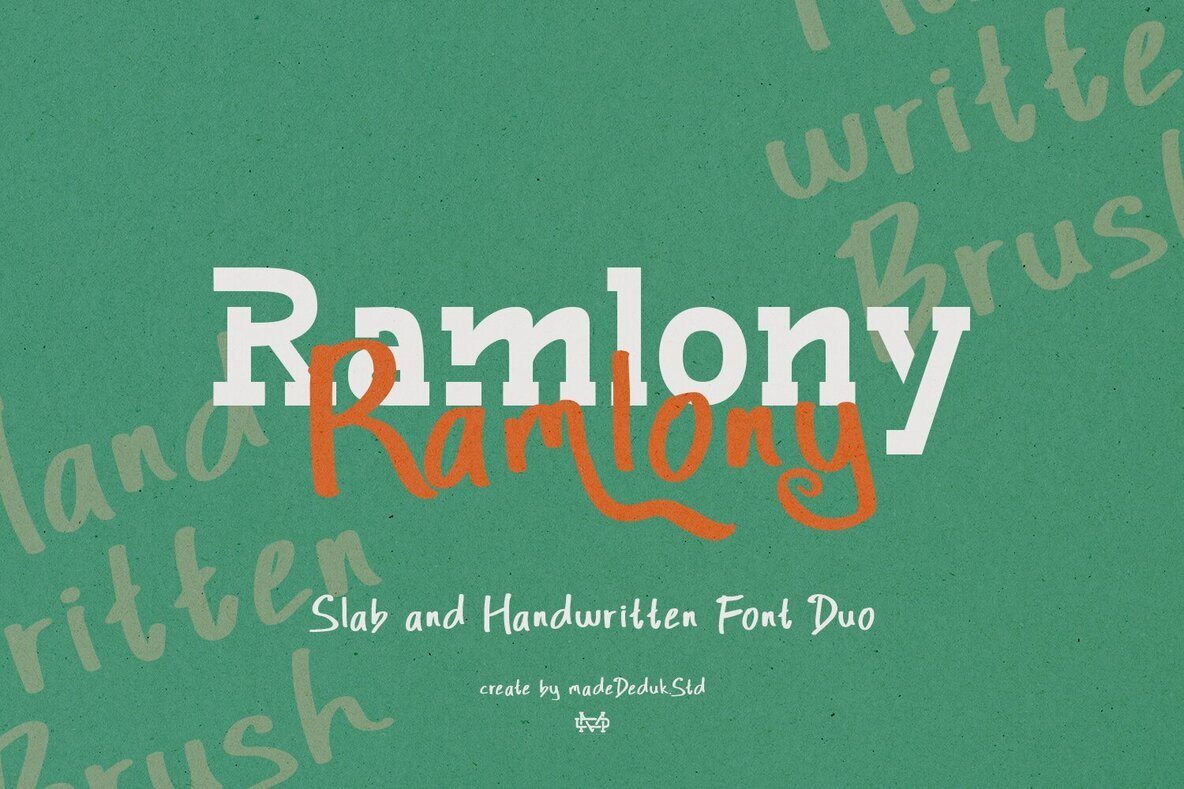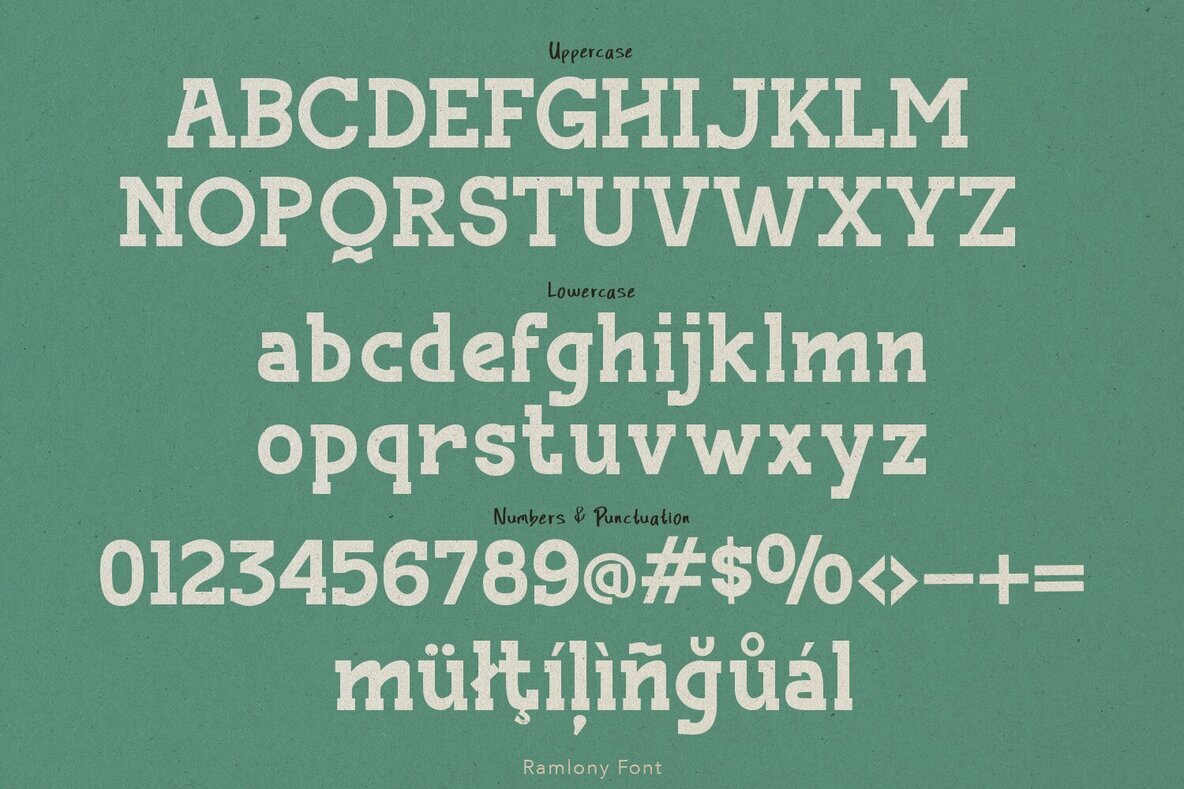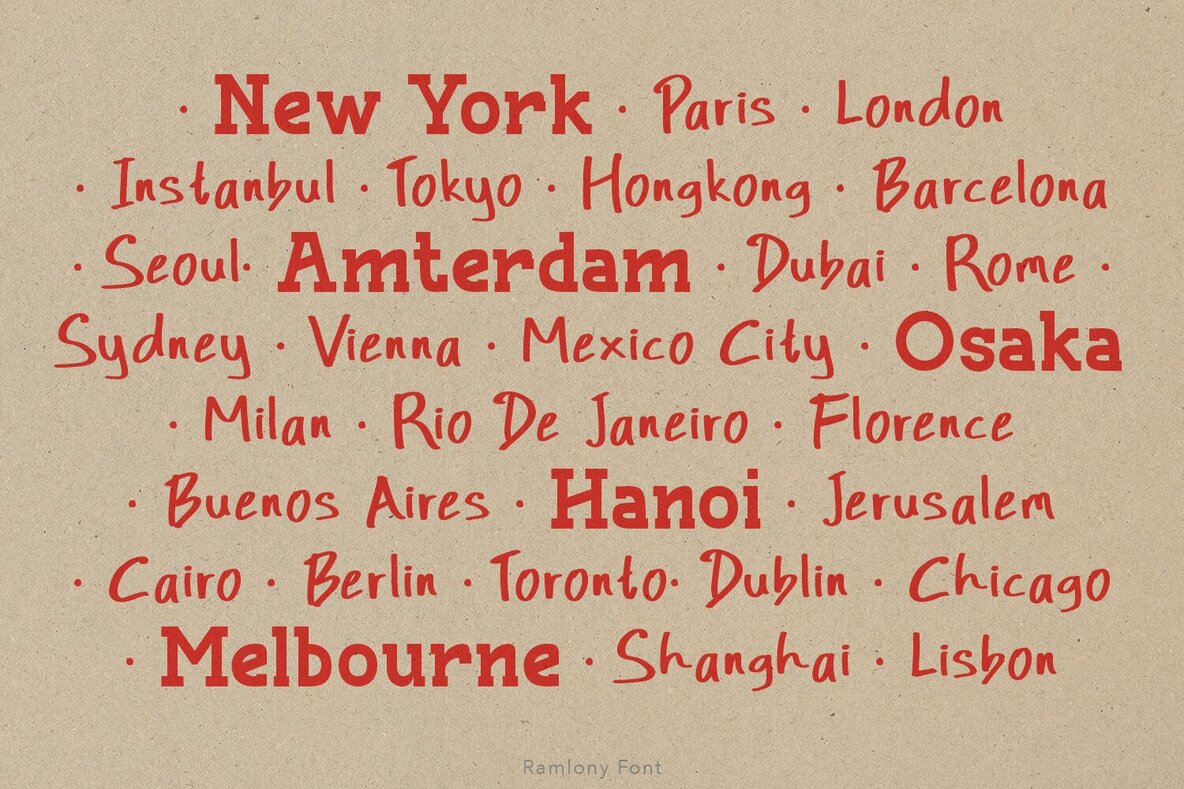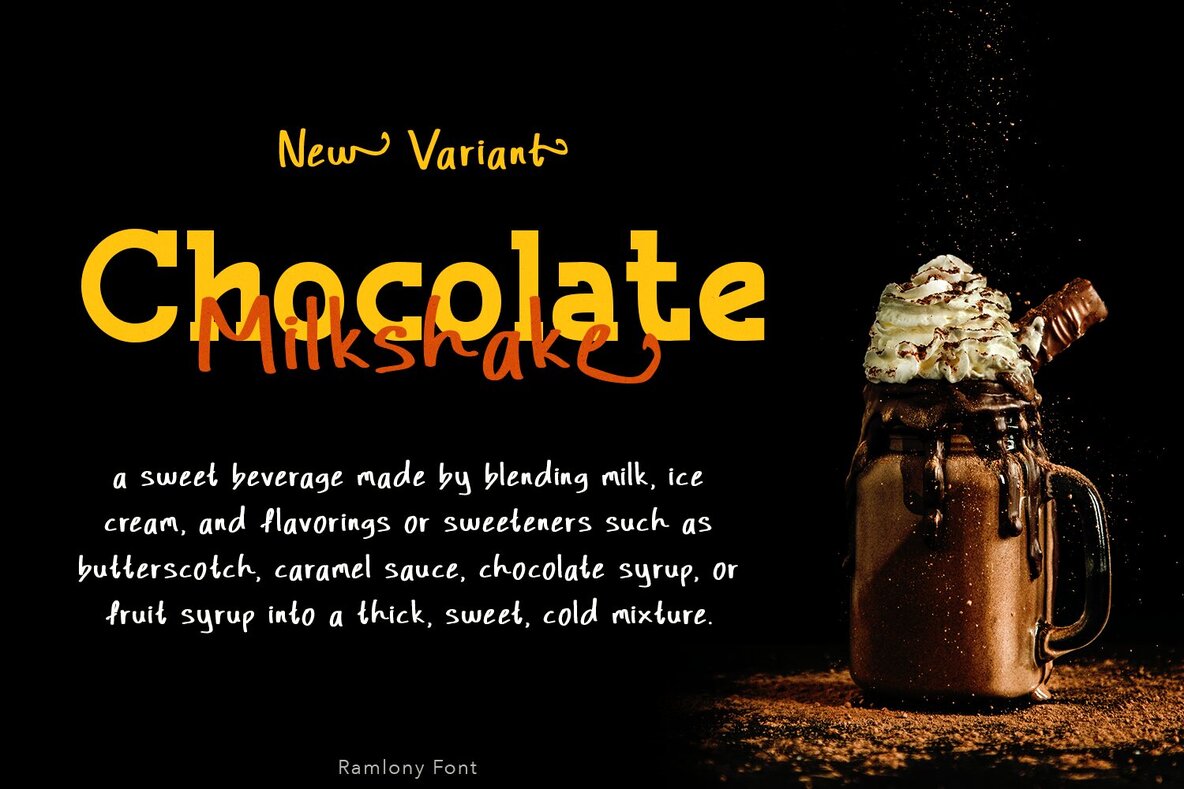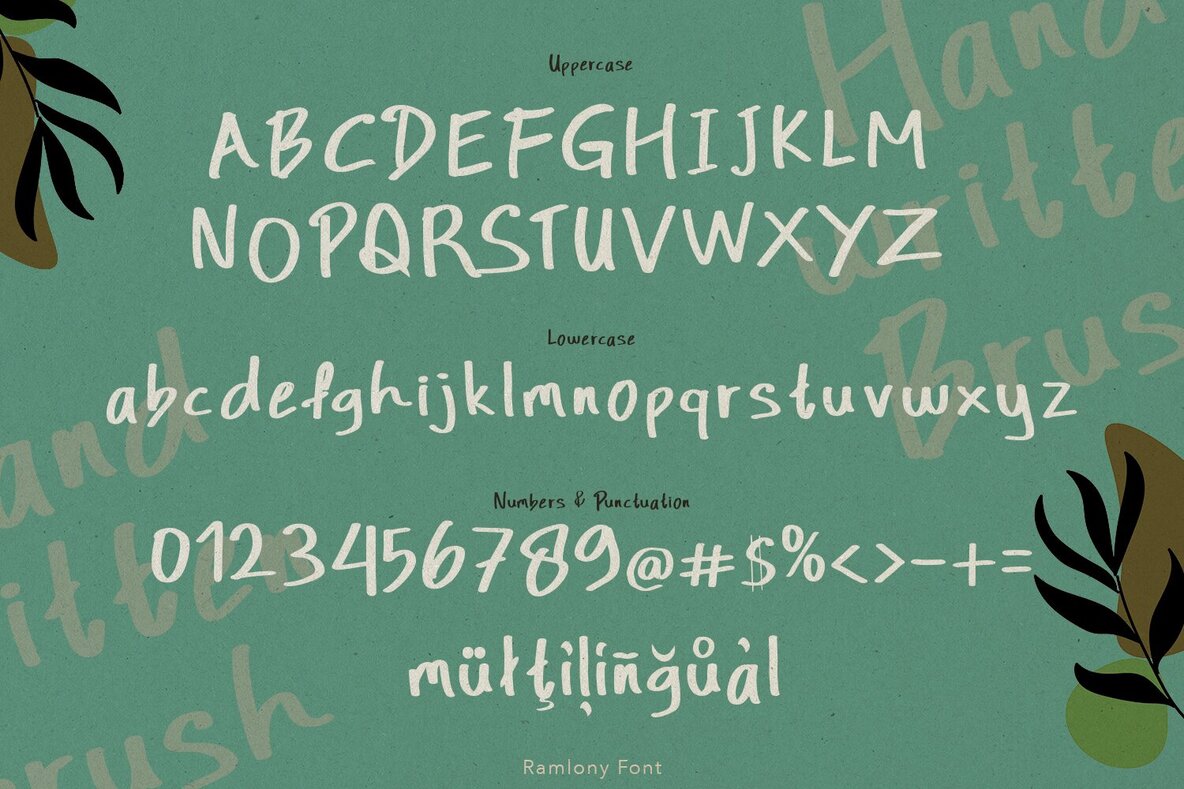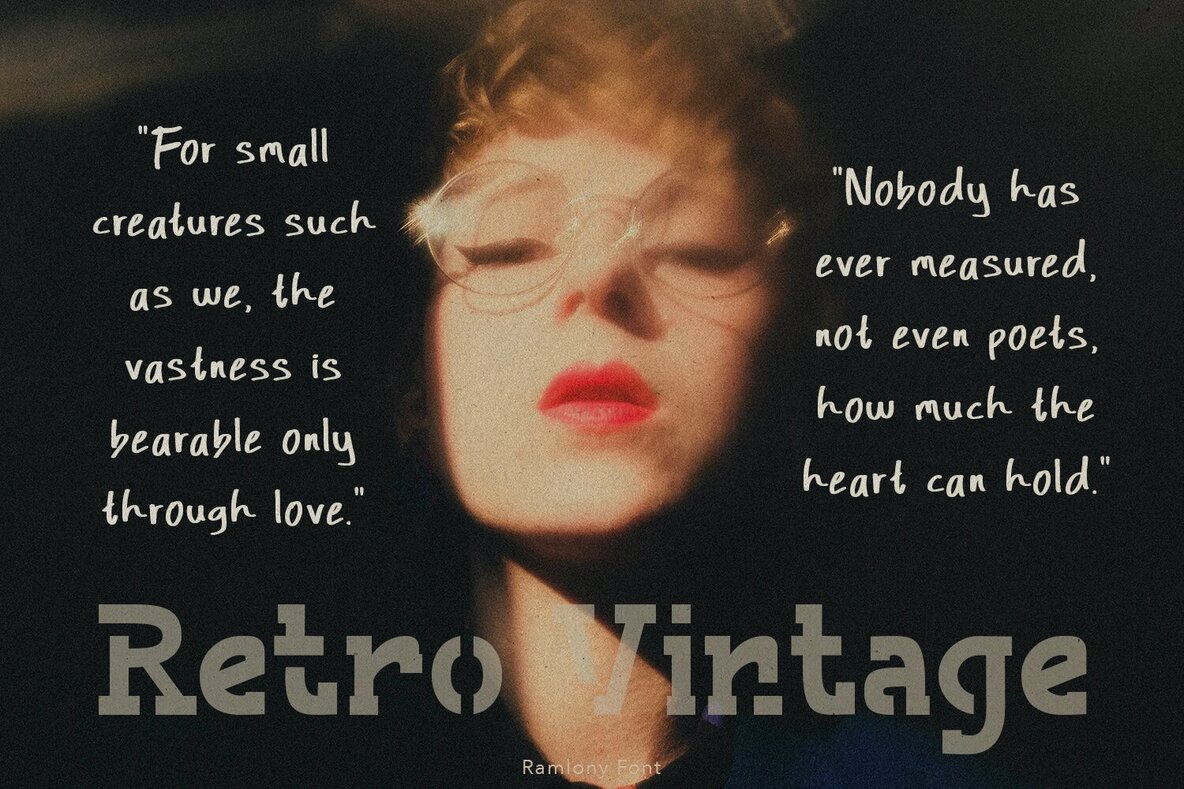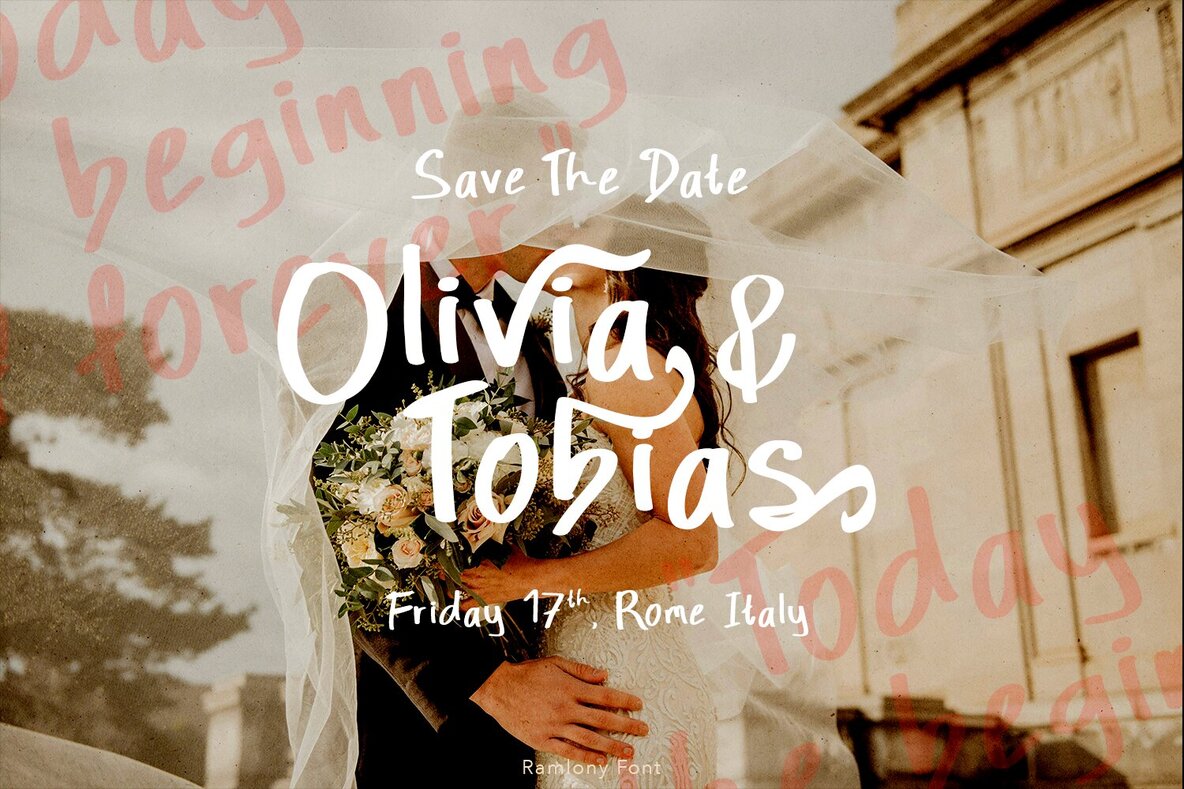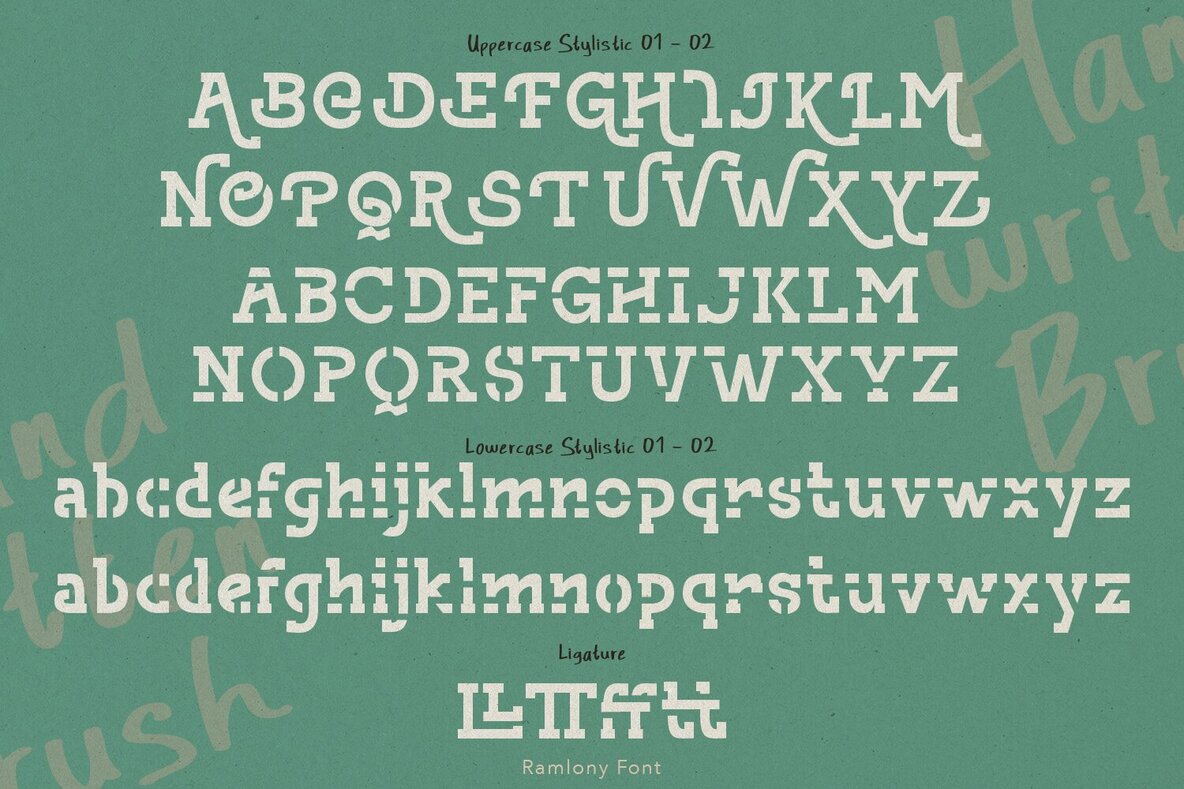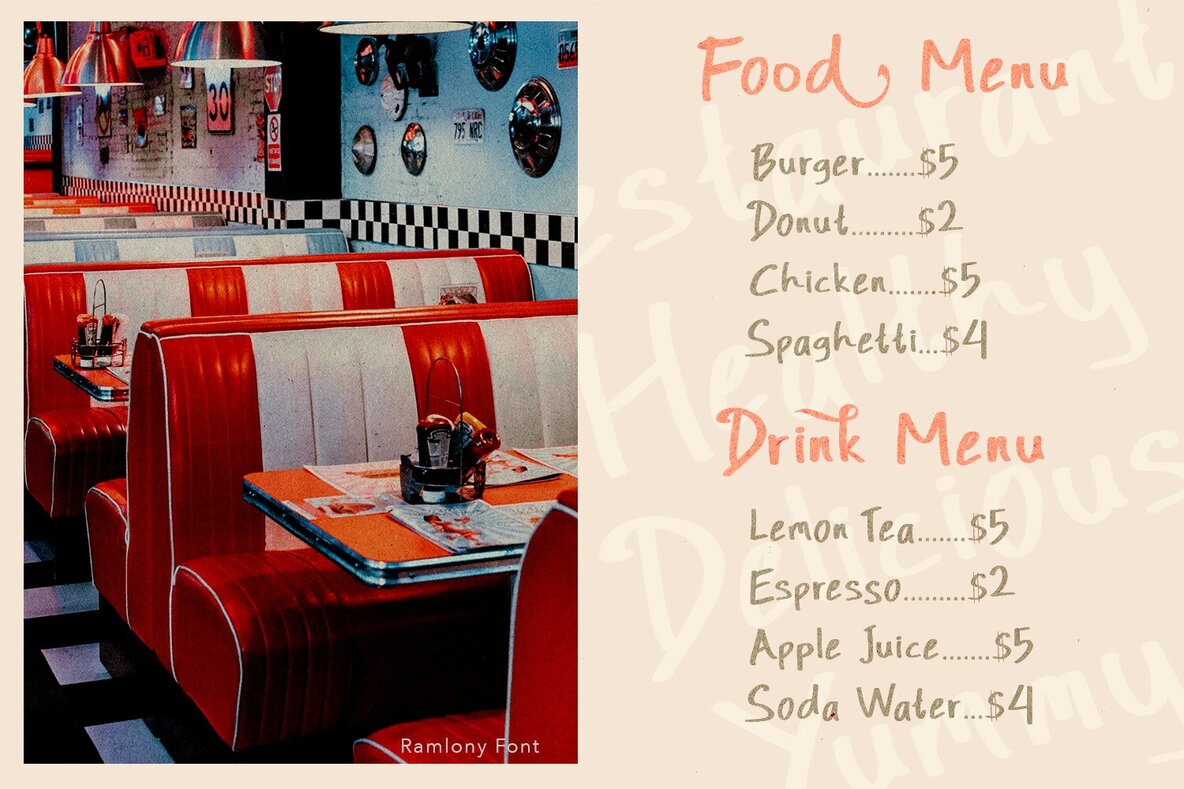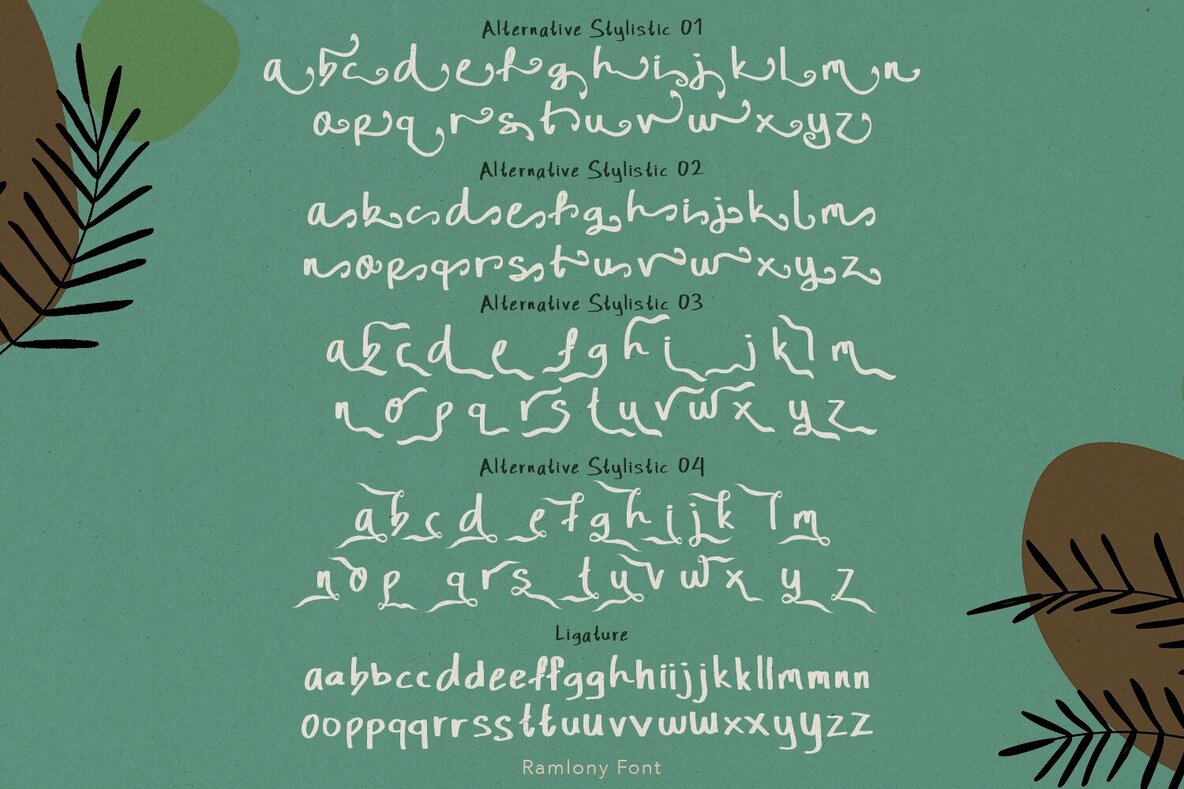
Ramlony Font
Ramlony Script
Ramlony Slab
Ramlony font duo marries an exquisite handwritten script with a robust slab font, establishing a graceful harmony that adds depth to any composition. The handwritten script captures the essence of genuine brush strokes, bringing an organic element to your designs. When paired with its slab companion, the duo ensures a balanced aesthetic that is both elegant and versatile. Ideal for diverse applications, Ramlony shines in branding initiatives, web titles, logos, and evocative quotes, while also lending drama to movie titles.Ramlony: A Delicate Handwritten Script and Slab Duo